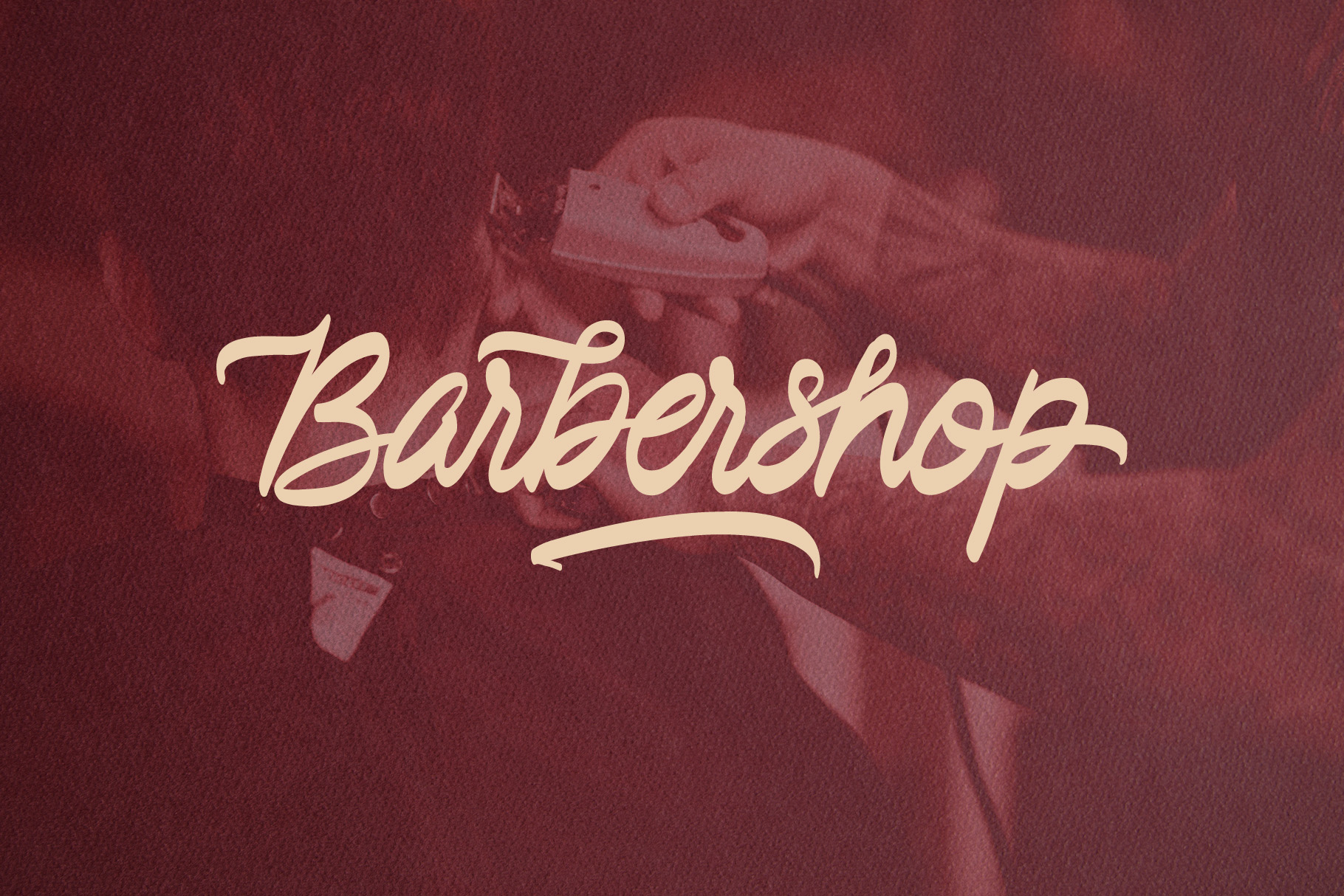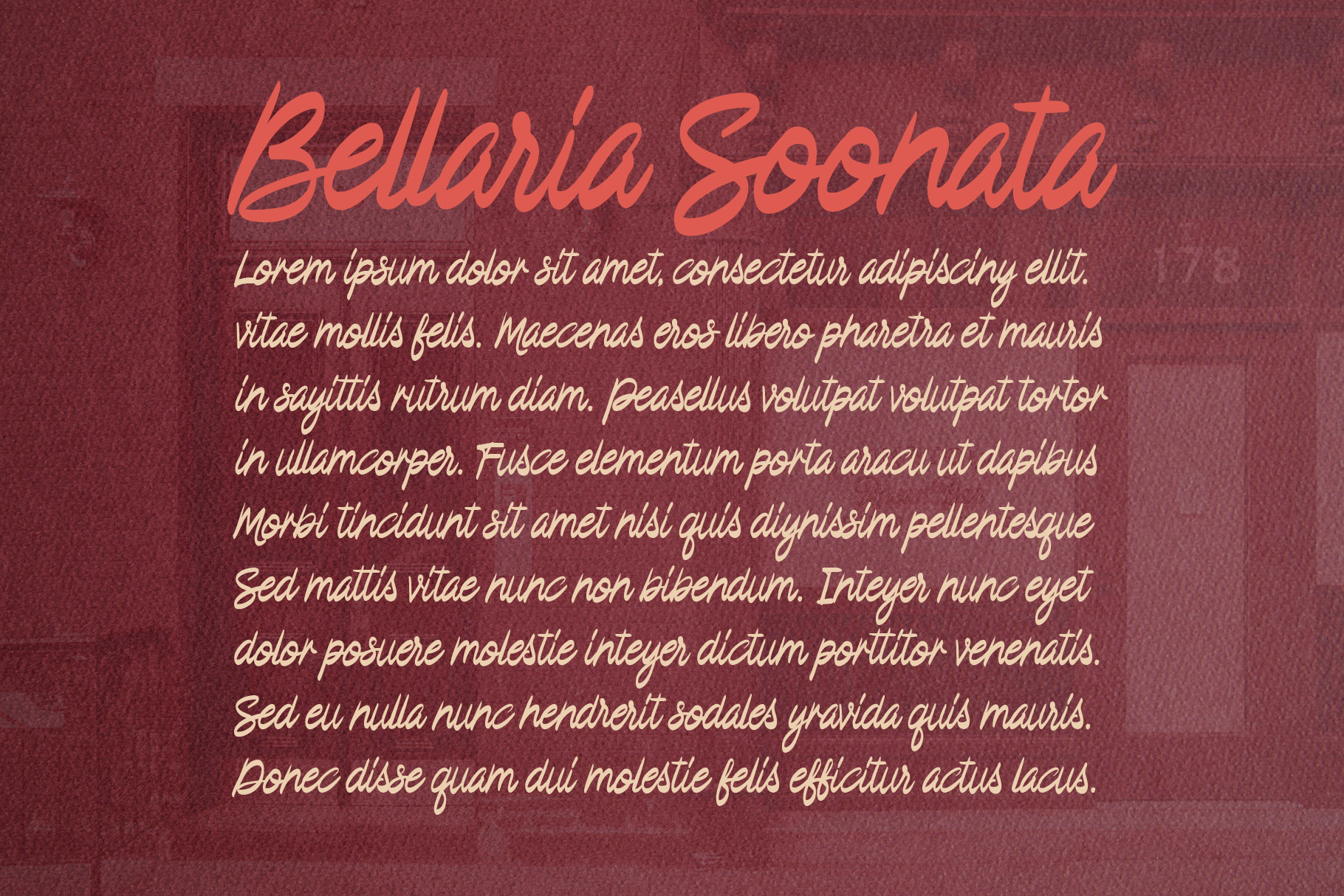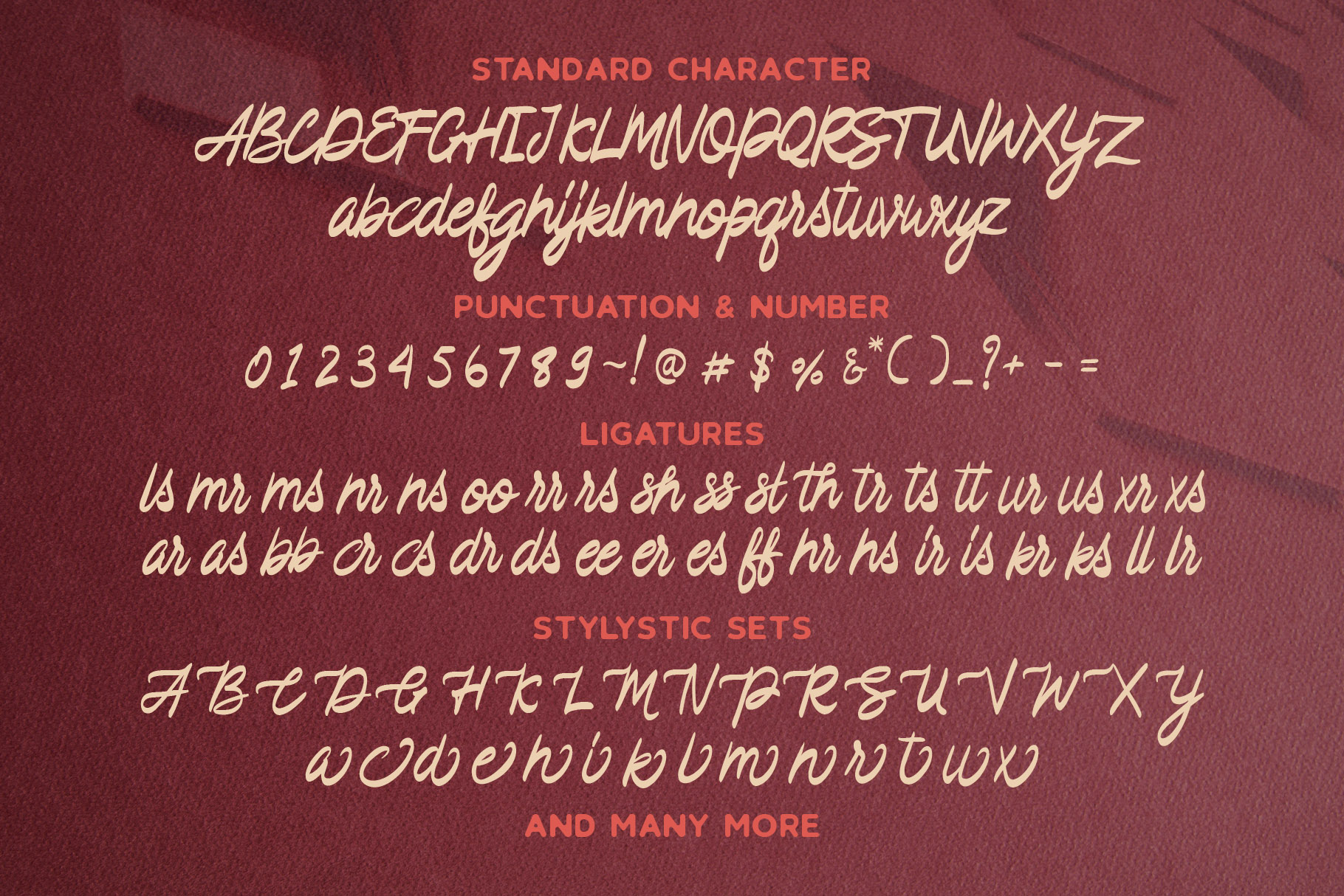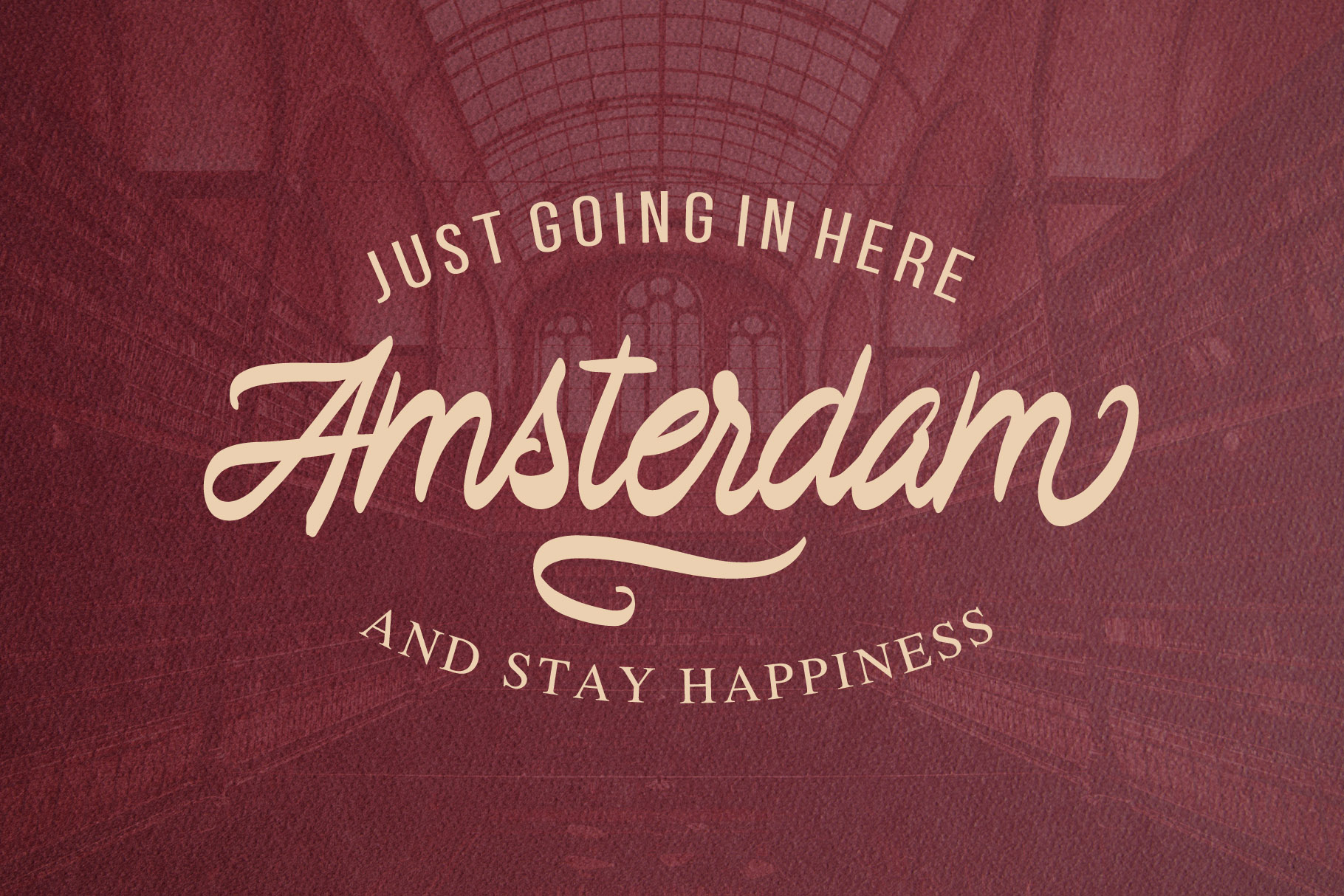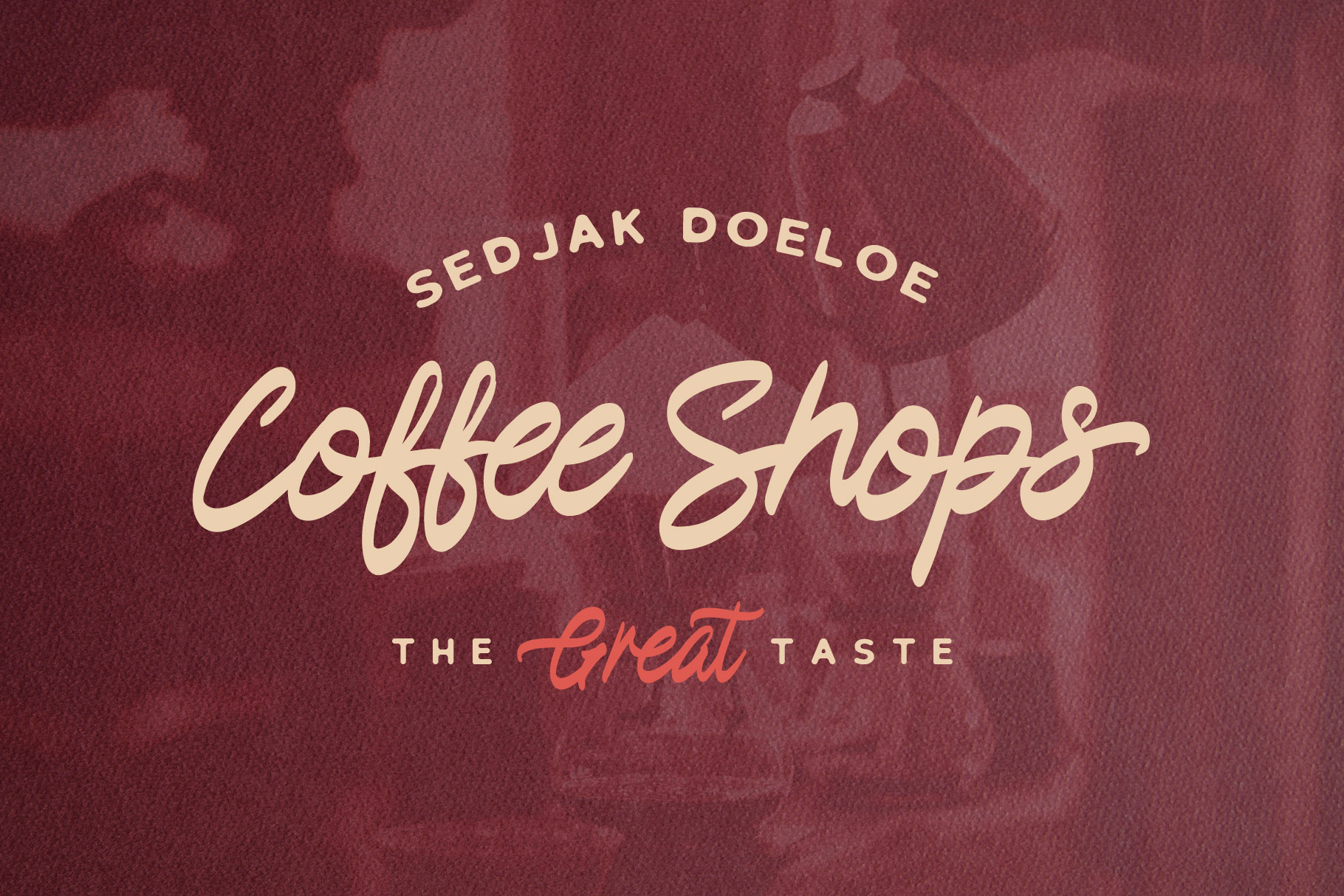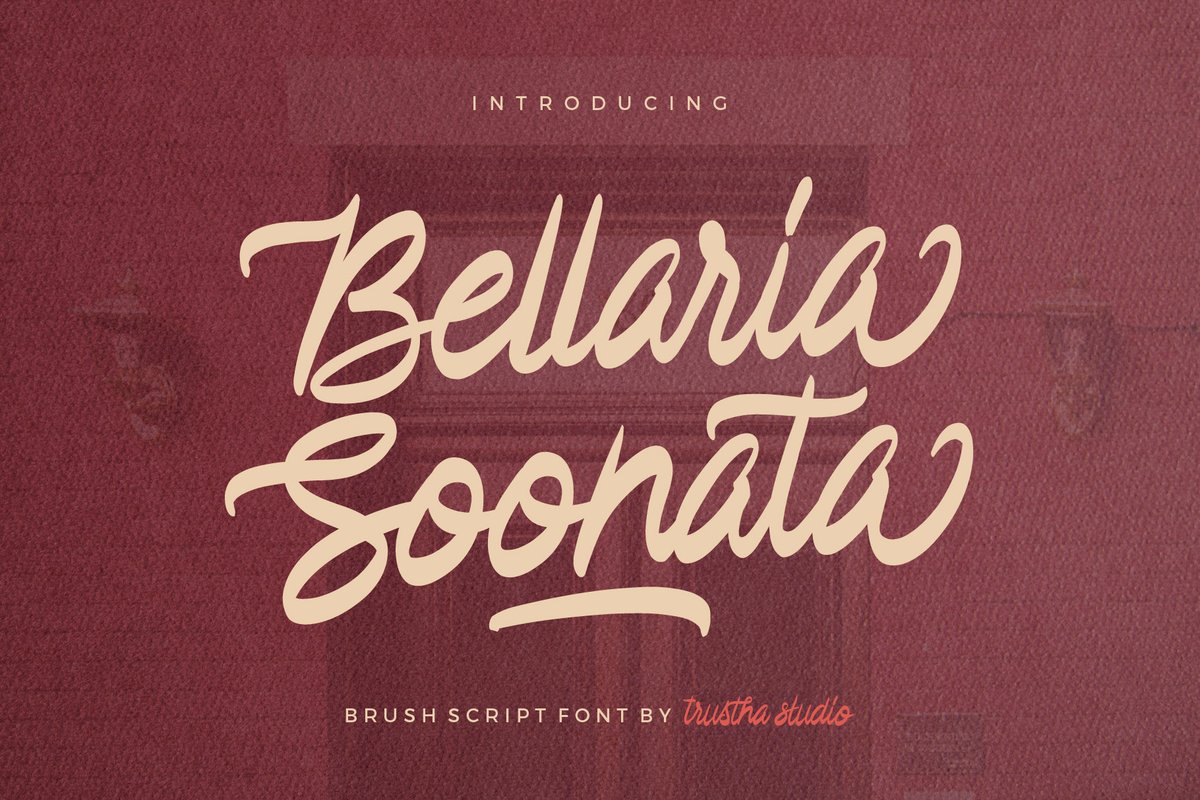
The Perfect Brush for Your Next Design
There’s something magical about the moment when a design comes together. The perfect balance of colors, the perfect font – it’s a feeling that’s hard to describe, but easy to recognize. You know it when you see it, and it’s what drives us to keep pushing the boundaries of creativity.
One of the key elements that can make or break a design is the font. That’s why we’re excited to introduce the Bellaria Soonata Font – a stunning brush script font that’s perfect for logotypes and headlines. This font brings a touch of warmth and authenticity to any design, making it a valuable tool for designers looking to add some personality to their work.
Bellaria Soonata Font Key Features
- Unique Characteristics: Elegant, modern script font with a touch of elegance and sophistication; ideal for invitations, wedding stationery, and other formal events
- Font Style: Script, Calligraphy
Bellaria Soonata Font Review
I recently had the chance to work with the Bellaria Soonata Font, and I must say, it’s a unique and intriguing typeface. ✨ Here are some of the things that work well:
- ✨ Elegant and refined feel, perfect for high-end branding and design projects.
- ✨ The font’s curves and lines are well-balanced, making it easy to read and visually appealing.
- ✨ The font supports a wide range of languages, making it a great choice for international projects.
- ⚠️ The font may be too ornate for certain design projects, potentially overwhelming the message.
- ⚠️ Some characters may not be as legible at smaller font sizes, requiring careful typography adjustments.
- ⚠️ The font’s weight range is limited, which may restrict design options.
Overall, I would say that the Bellaria Soonata Font is a solid choice for designers who want to add a touch of sophistication to their projects. While it may not be suitable for every design scenario, it’s a great option for those who want to make a statement with their typography.
Here are some tips for getting the most out of the Bellaria Soonata Font:
- Use the font in combination with other elegant fonts for a sophisticated look.
- Use the font in headings and titles to create a clear hierarchy.
The Bellaria Soonata Font is ideal for:
- Formal event invitations
Alternatives to Bellaria Soonata Font
Montserrat is a modern sans-serif font that is highly legible and versatile. It is a great choice for body text and titles, especially in digital applications. Montserrat is more geometric and condensed compared to Bellaria Soonata Font, making it ideal for use in small screen devices and digital interfaces.
Lato is a clean and elegant sans-serif font that is suitable for a wide range of applications, from body text to titles. It is more rounded and friendly compared to Bellaria Soonata Font, making it ideal for use in branding and marketing materials. Lato is also highly legible and versatile, making it a great choice for digital applications.
Open Sans is a modern sans-serif font that is highly legible and versatile. It is a great choice for body text and titles, especially in digital applications. Open Sans is more rounded and friendly compared to Bellaria Soonata Font, making it ideal for use in branding and marketing materials. It is also highly customizable, making it a great choice for designers who want to create a unique look.
Inter is a modern sans-serif font that is highly legible and versatile. It is a great choice for body text and titles, especially in digital applications. Inter is more geometric and condensed compared to Bellaria Soonata Font, making it ideal for use in small screen devices and digital interfaces. It is also highly customizable, making it a great choice for designers who want to create a unique look.